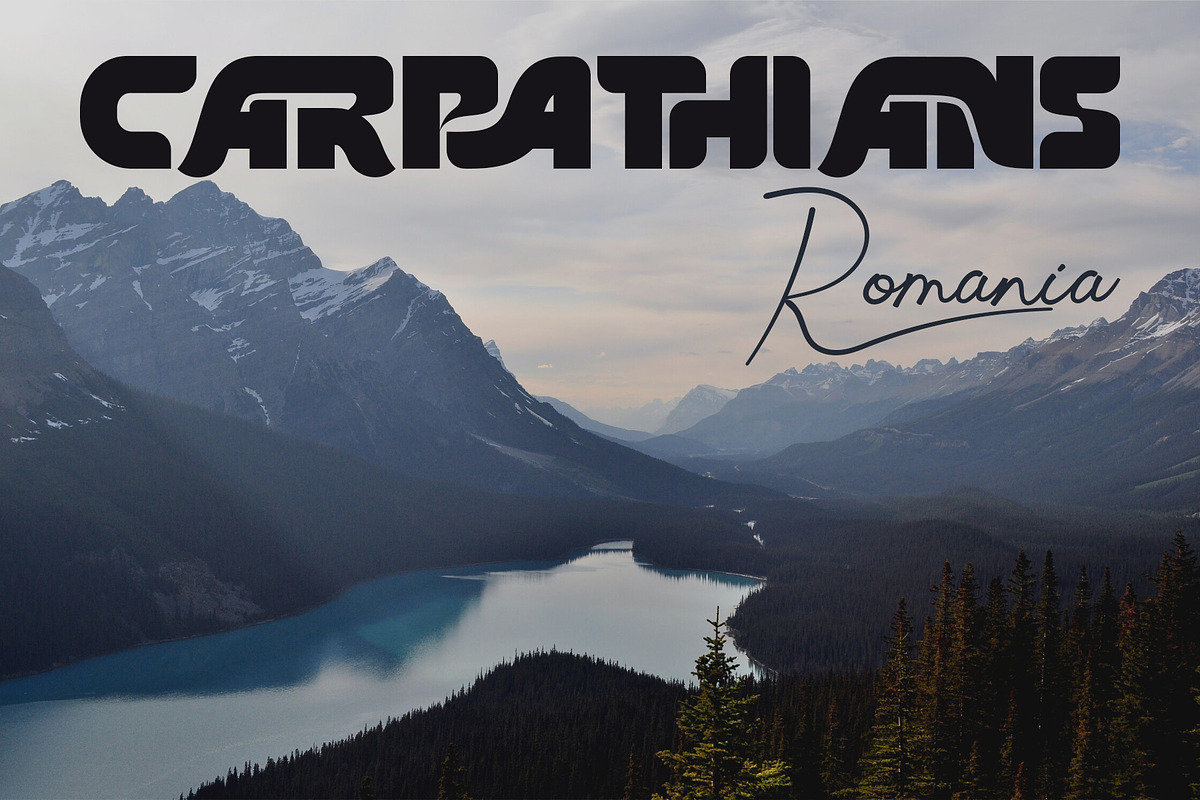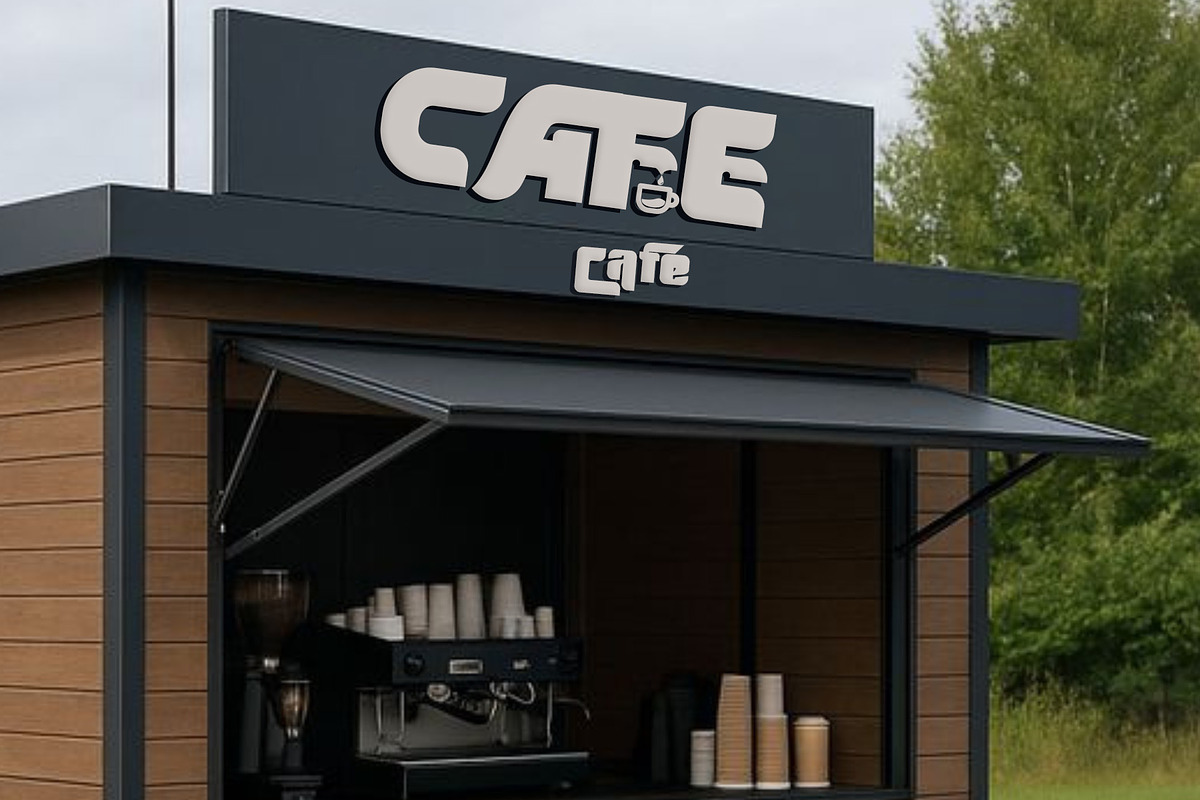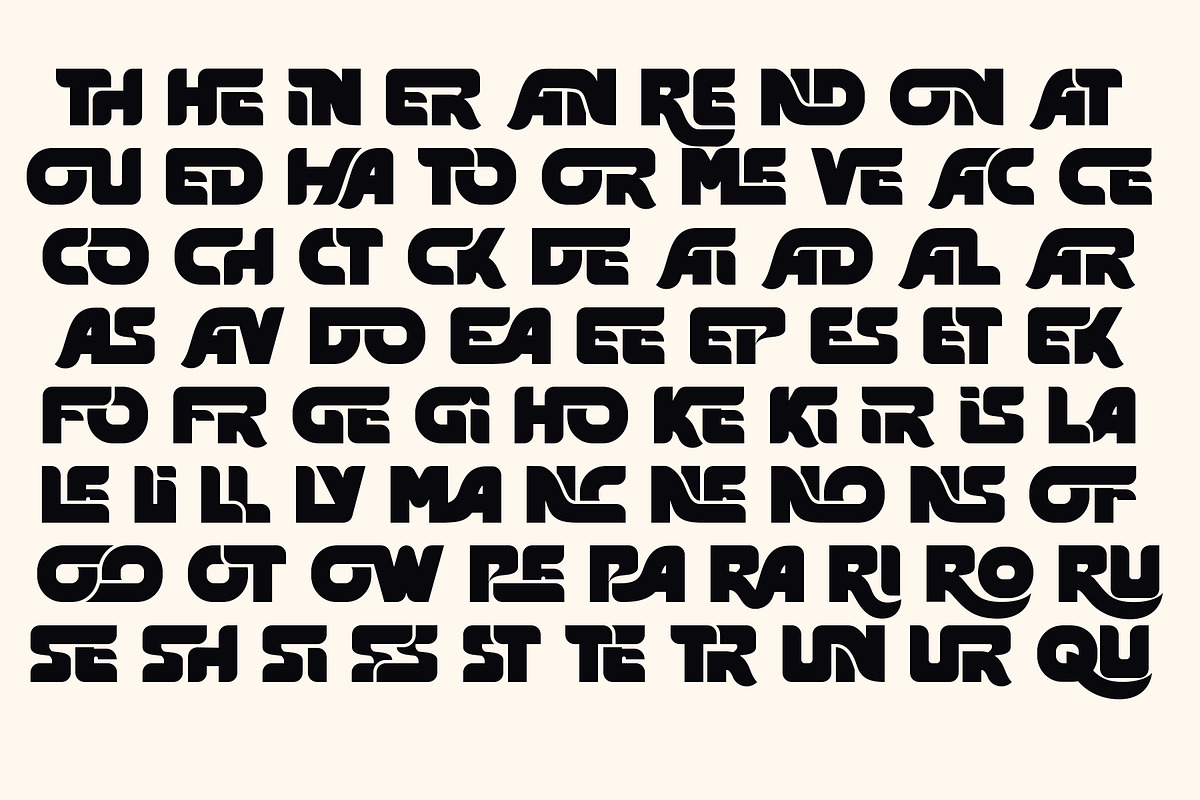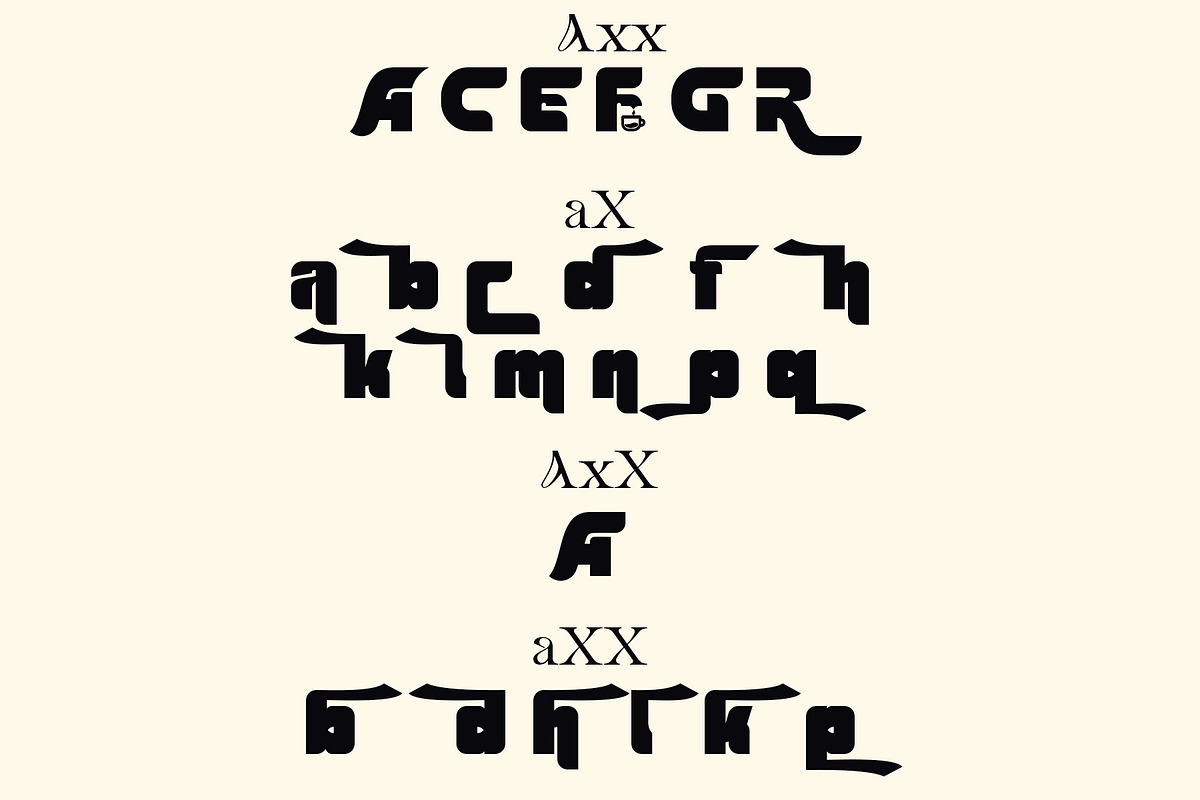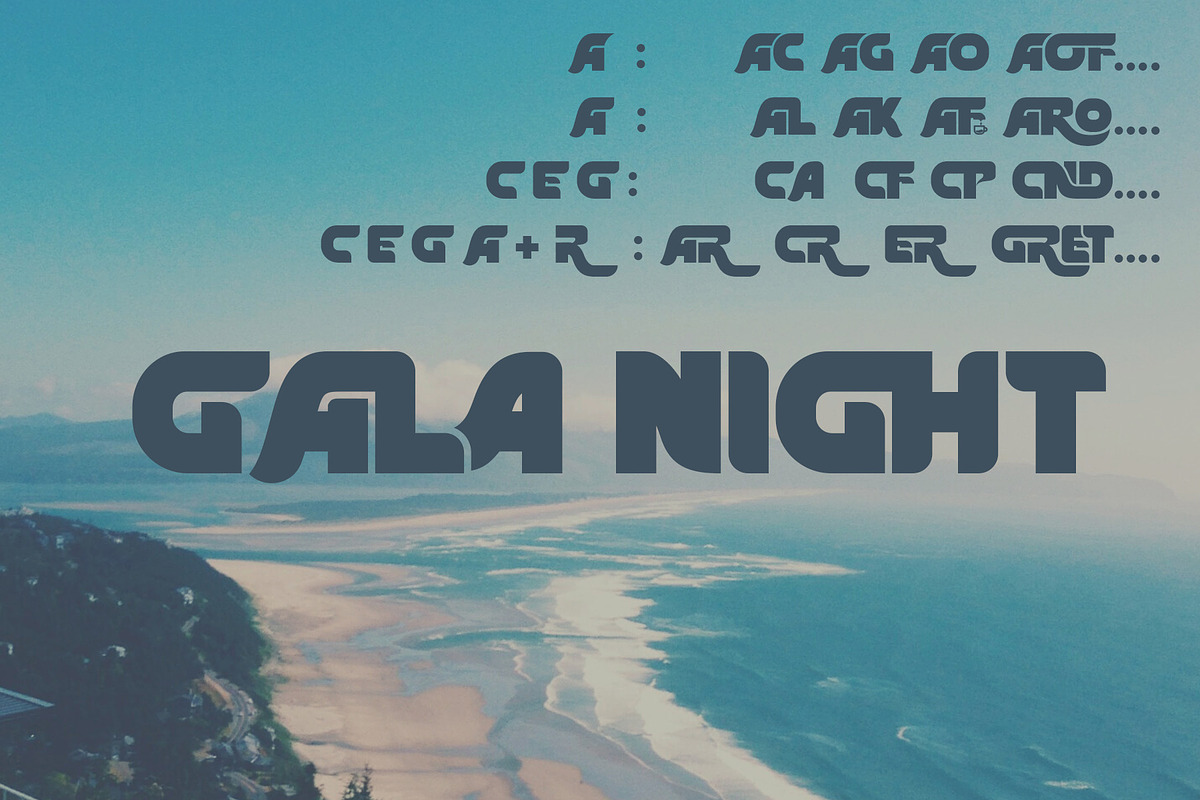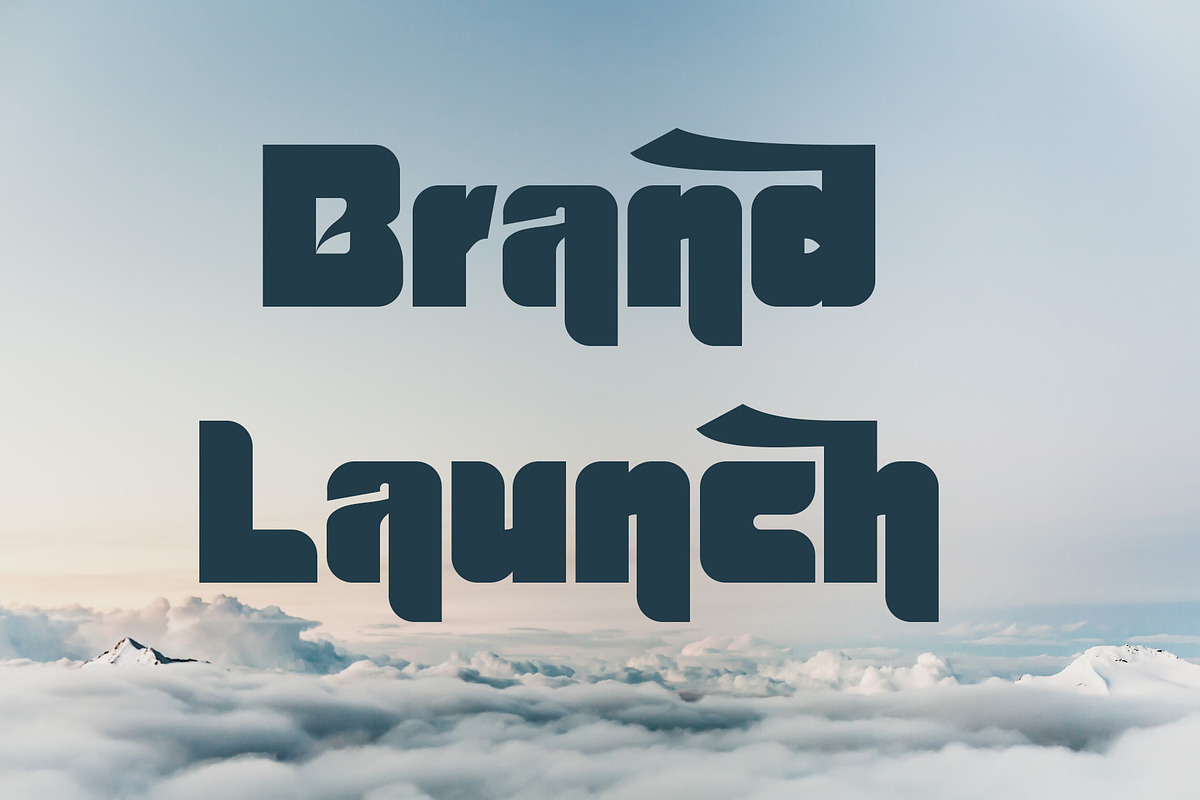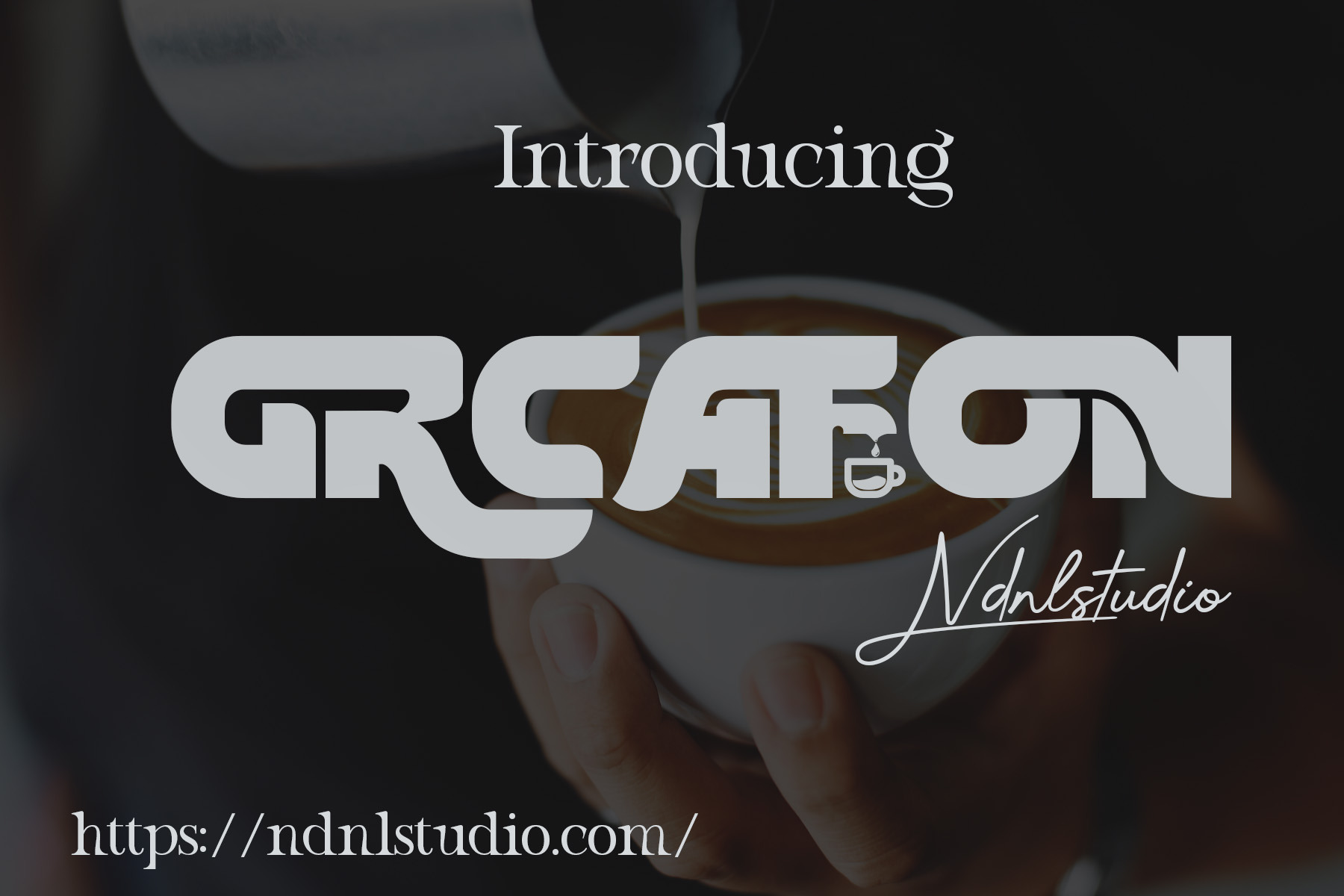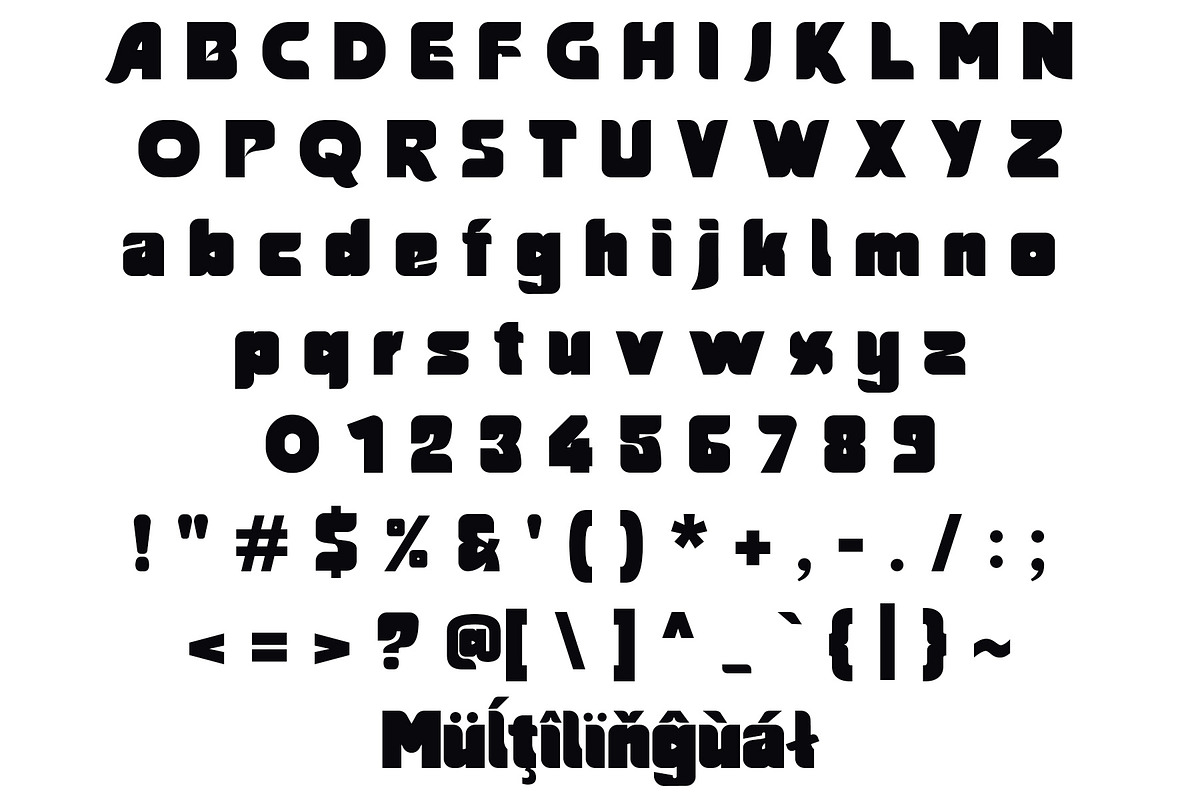
Grcafon – Bold Sans Serif Font
Introducing Grcafon!
Grcafon Font is a unique geometric typeface defined by bold forms and clean modern shapes. With its strong visual weight and futuristic styling, it brings a striking identity to any project. Inspired by the atmosphere of contemporary coffee culture, Grcafon delivers an energetic and stylish look that stands out instantly. Ideal for coffee branding, menus, packaging, signage, and any design that embraces an urban, creative spirit.
Examples:
- Axx → Decorative A (if available)
- aX → Decorative a (if available)
And also:
- AxX → Decorative A2 (if available)
- aXX → Decorative a2 (if available)
- aXXX → Decorative a3 (if available)